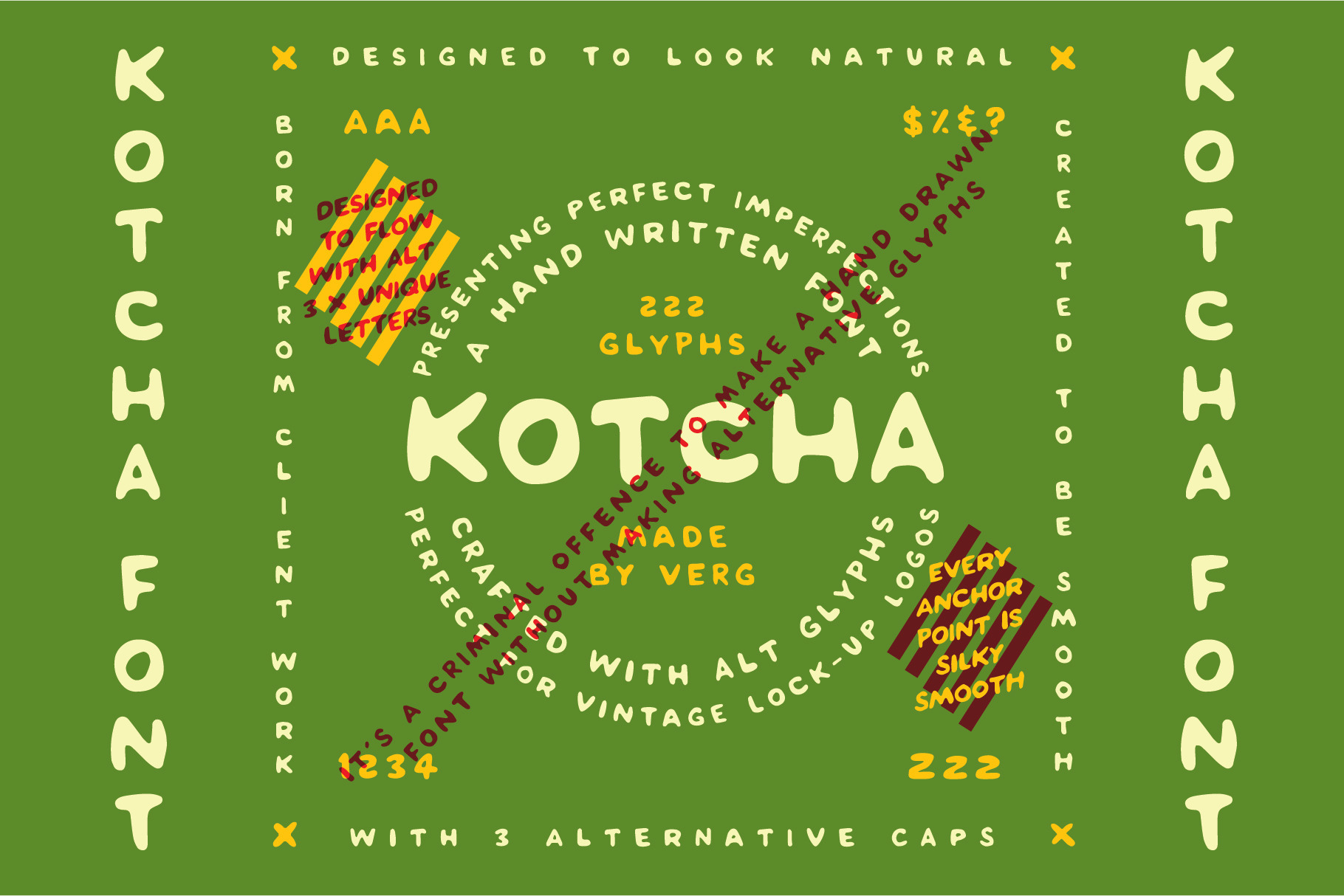
KOTCHA FONT
A casual and fun handwritten typeface that’s been programmed to alternate and randomise between 3 unique glyphs for every letter. This means no repeating letters next to each other, so when using a handwritten font, it looks… Handwritten!